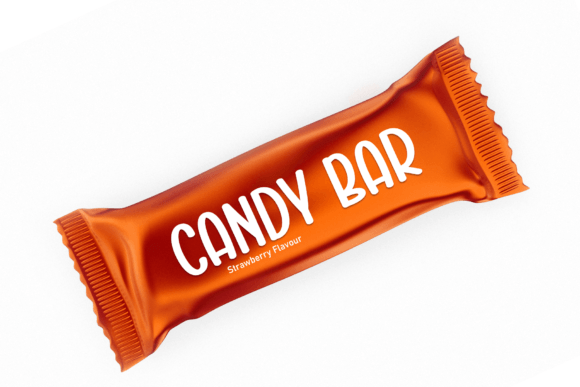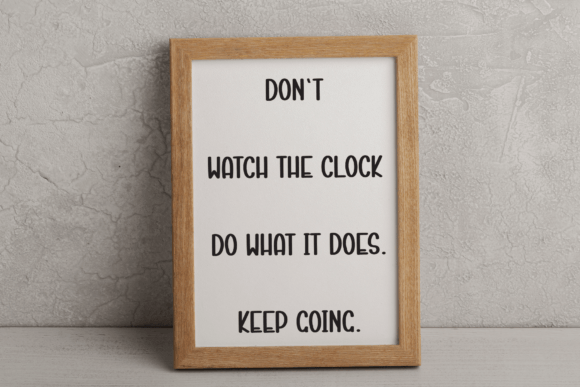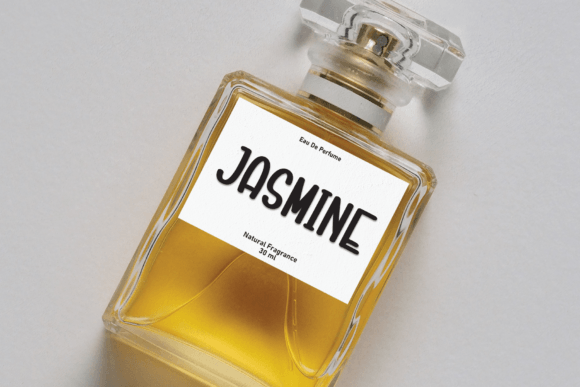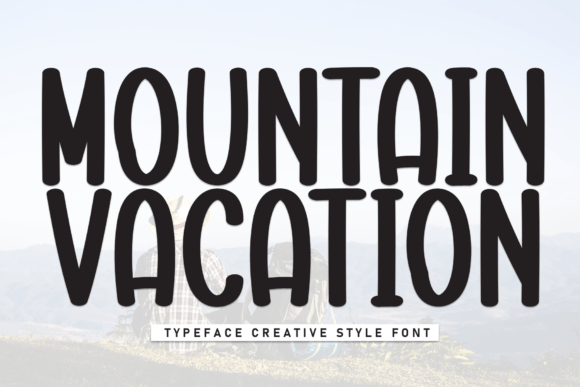
Introduction to Mountain Vacation Font
Mountain Vacation is a sweet and friendly handwritten font.
Cute yet versatile, this font is ideal for writing wedding invitations, cards, or any other design that might need a lovely touch .